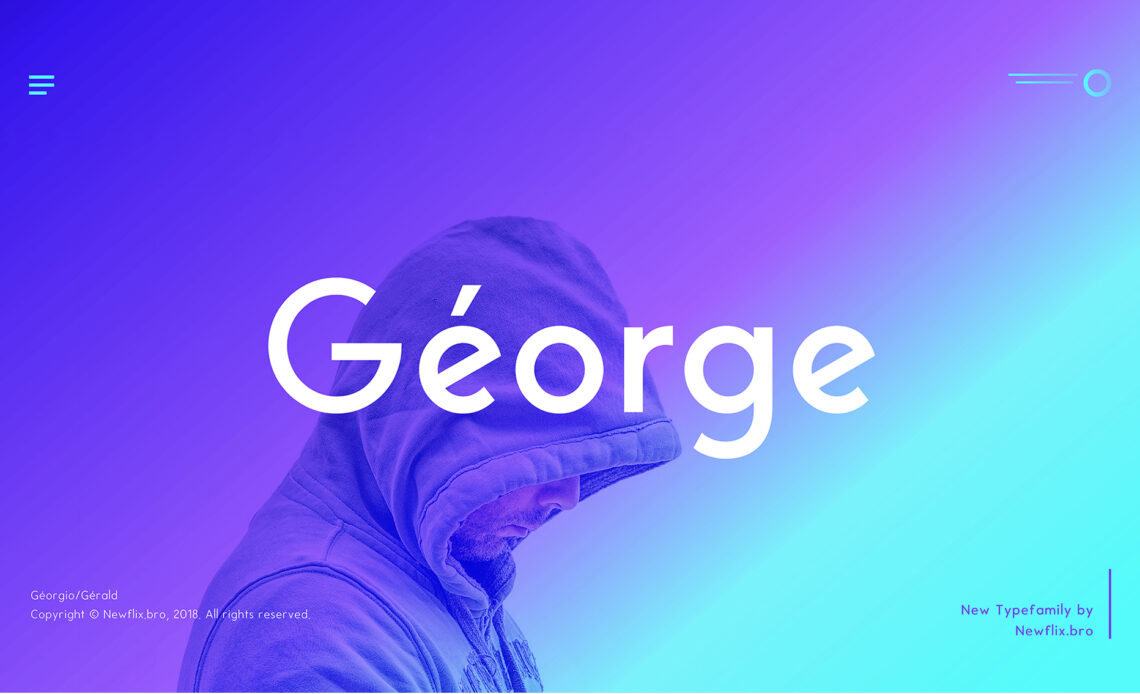
George Font
Brace yourself for George Font, a typographic masterpiece that redefines elegance and sophistication. This sans serif font family, brought to life by the visionaries at Newflix, comprises six fonts, each meticulously crafted to deliver a harmonious aesthetic for both texts and headlines.
As you immerse yourself in George Font's design, you'll discover a clean and stylized modern geometry, a testament to the font's contemporary edge. The clean lines and sharp angles exude a sense of order and precision, while the subtle curves introduce a touch of softness and warmth.
With George Font, you're not just downloading a font; you're acquiring a gateway to creative expression. Whether you're crafting captivating headlines that demand attention or immersing your readers in beautifully typeset texts, George Font becomes your trusted companion in the realm of visual communication.
* **Craft Headlines that Captivate:** Design headlines that leap off the screen, commanding attention and leaving a lasting impression. George Font's innate ability to attract the eye makes it the perfect choice for creating impactful titles and headings that resonate with your audience.
* **Compose Texts that Engage:** Transform your written content into an immersive reading experience with George Font. Its clean and legible design ensures effortless reading, while its subtle elegance adds a touch of sophistication that keeps readers captivated from start to finish.
* **Express Your Creativity:** Let your imagination run wild as you explore the boundless creative possibilities of George Font. Its versatility knows no bounds, adapting seamlessly to a wide range of design projects, from sleek branding materials to eye-catching social media graphics.
George Font is more than just a font; it's an investment in your creative pursuits. Its timeless design and versatility make it an indispensable tool for designers, marketers, and content creators alike. Embrace the elegance of George Font and watch your creative visions come to life.